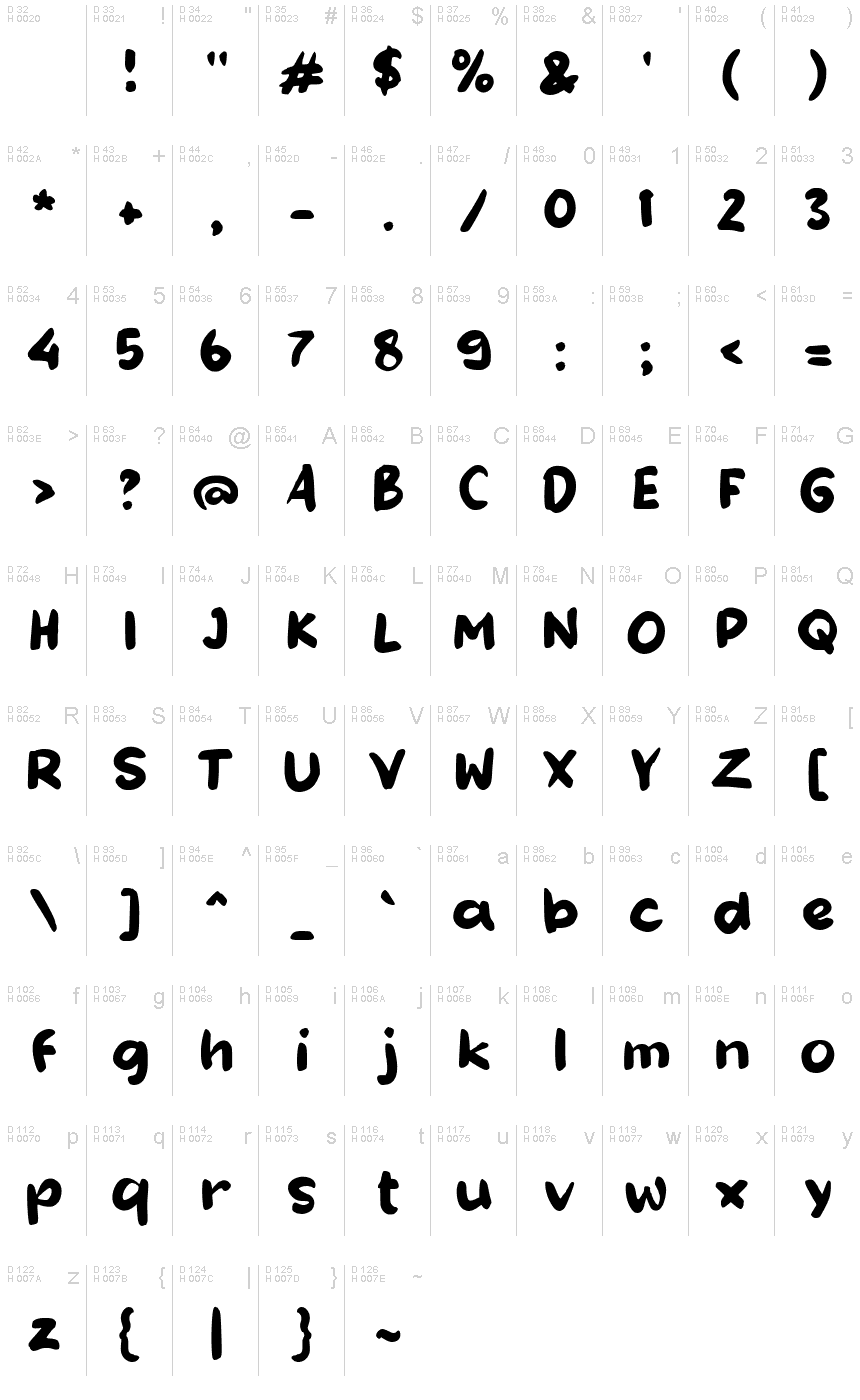
Filsan
Filsan, a creation by wep, showcases a smooth brush font style that exudes boldness and creativity. With its flowing curves and confident strokes, Filsan effortlessly captures attention and adds an artistic touch to any project.
This versatile font is perfect for logo designs, branding materials, packaging, and invitations. Its bold weight ensures maximum impact while maintaining legibility. Whether used for fashion campaigns or food blogs, Filsan brings a touch of elegance and sophistication to every project it graces.